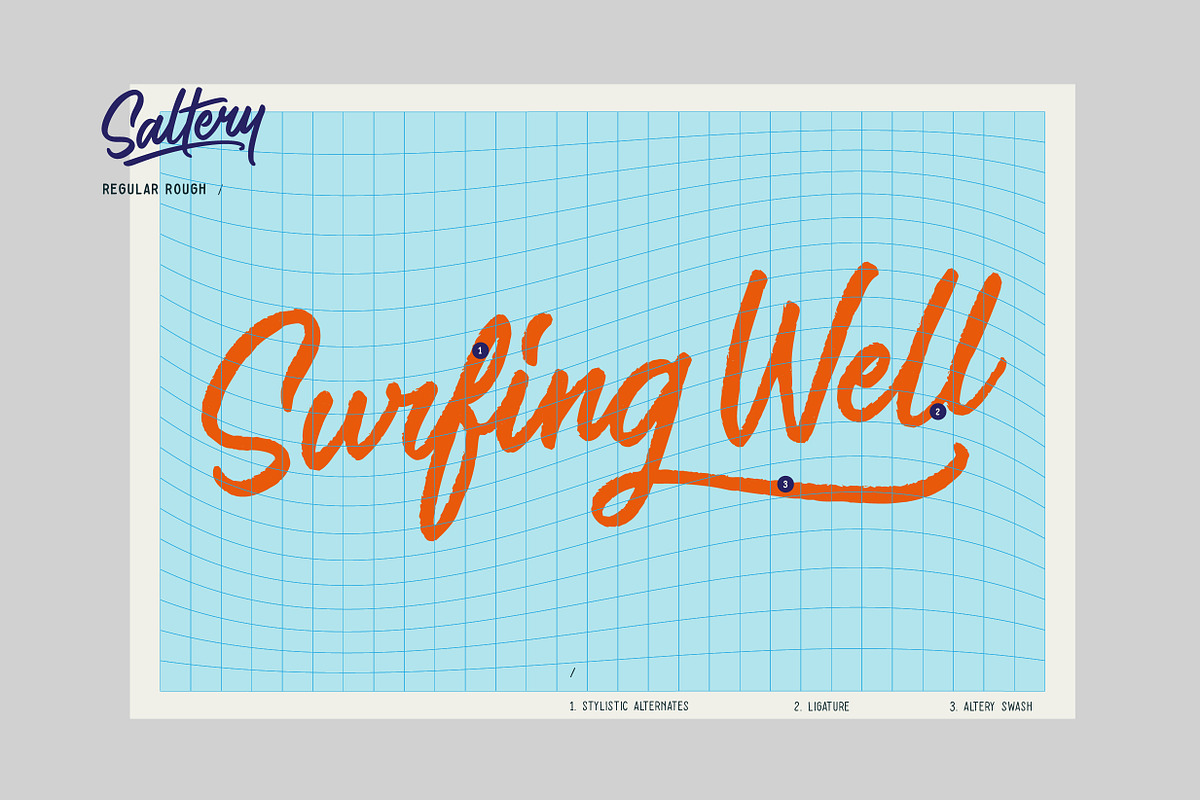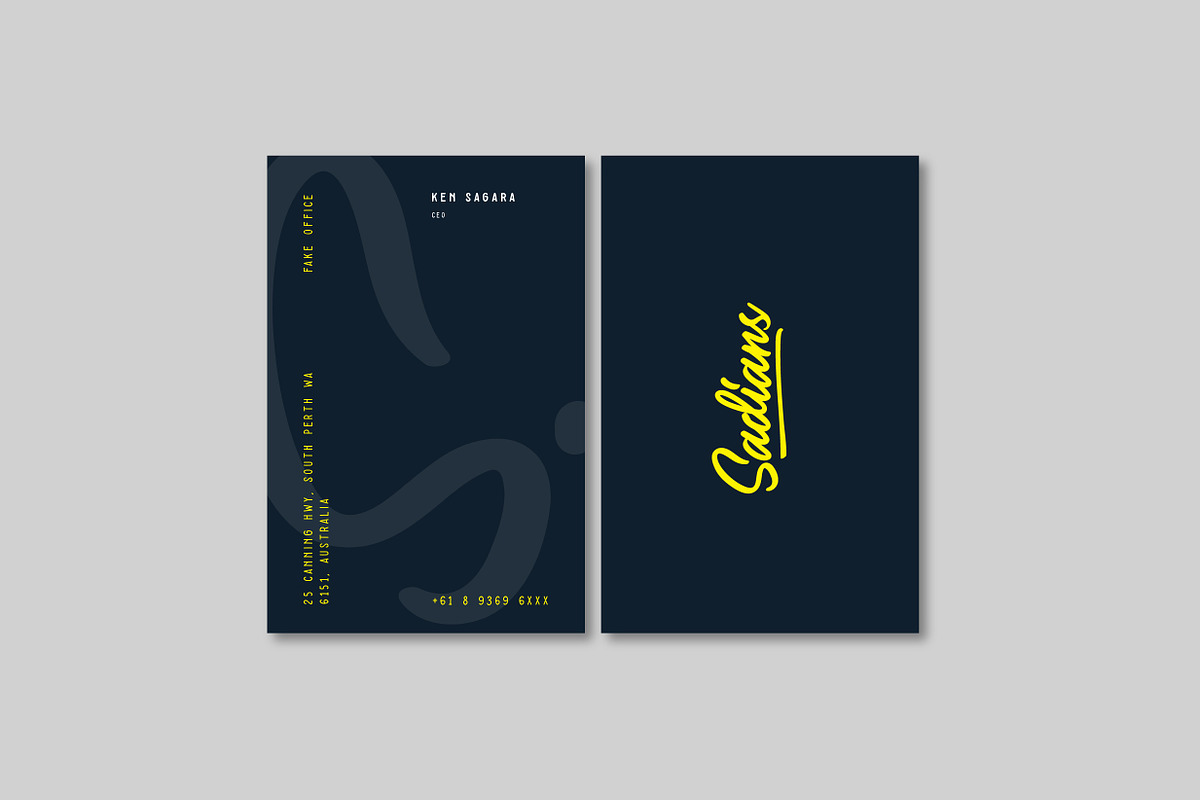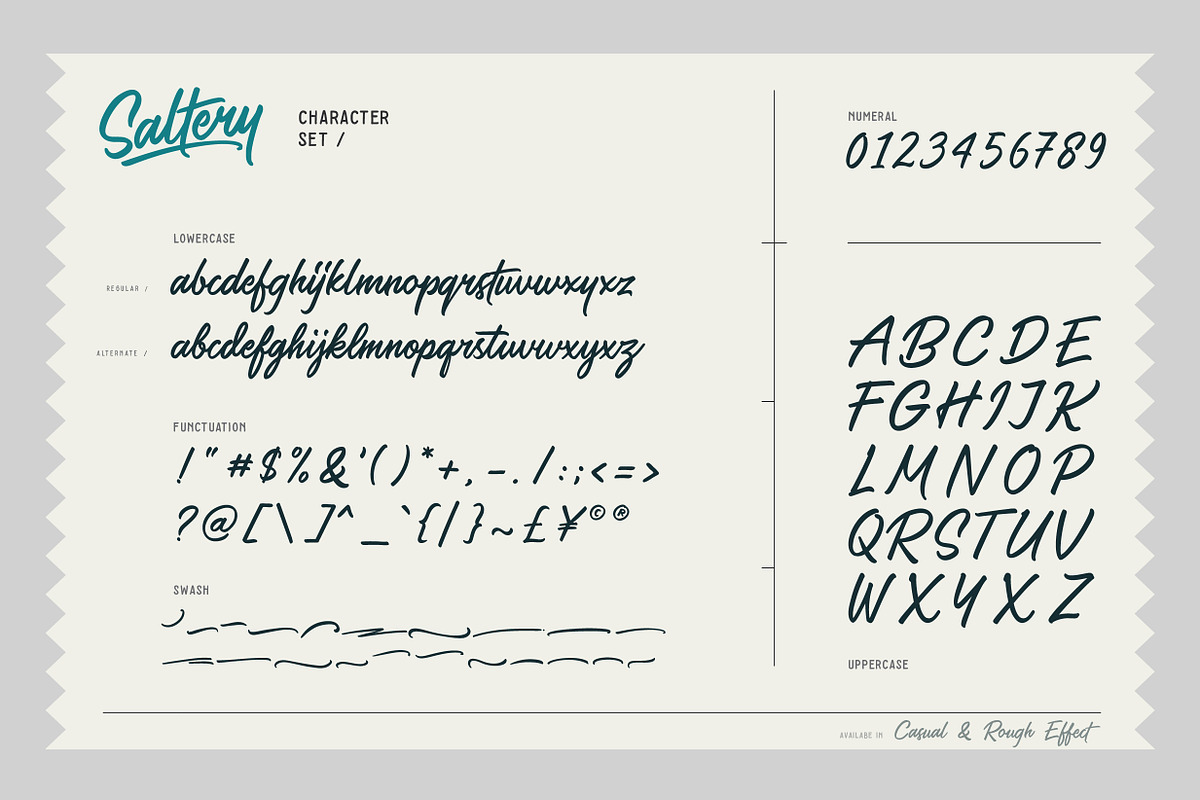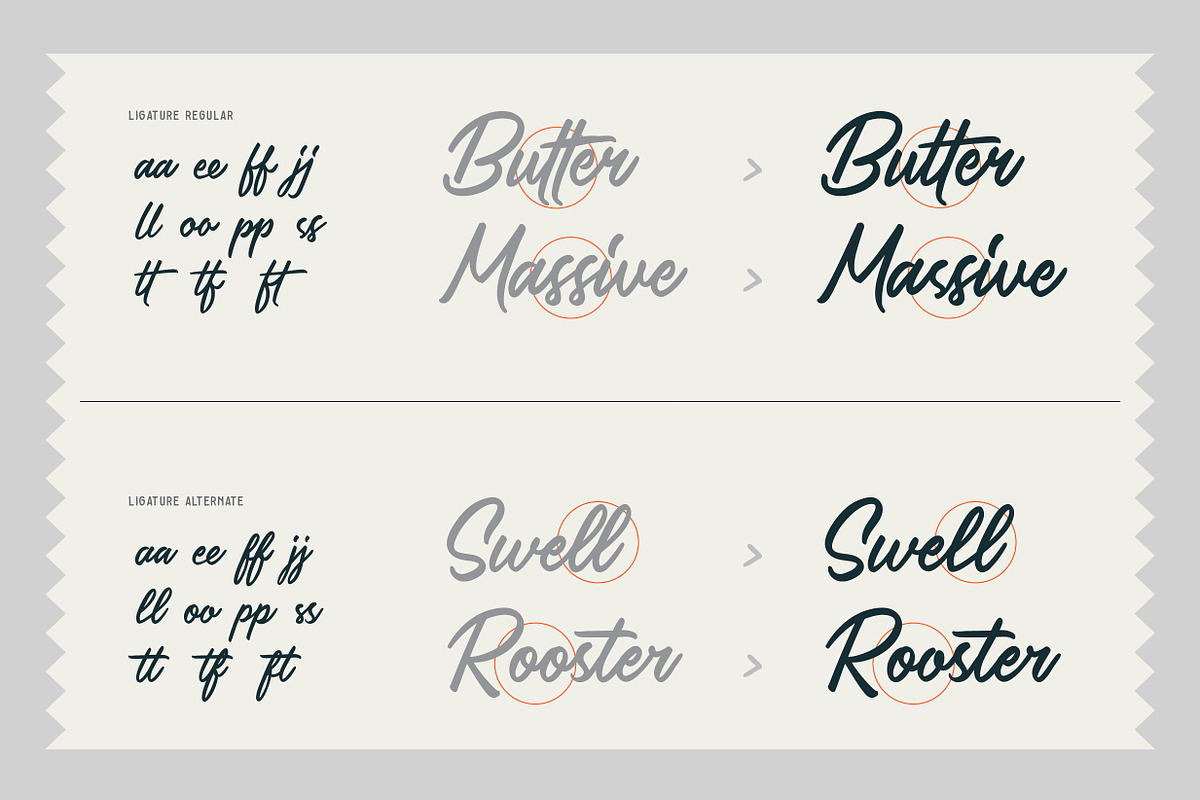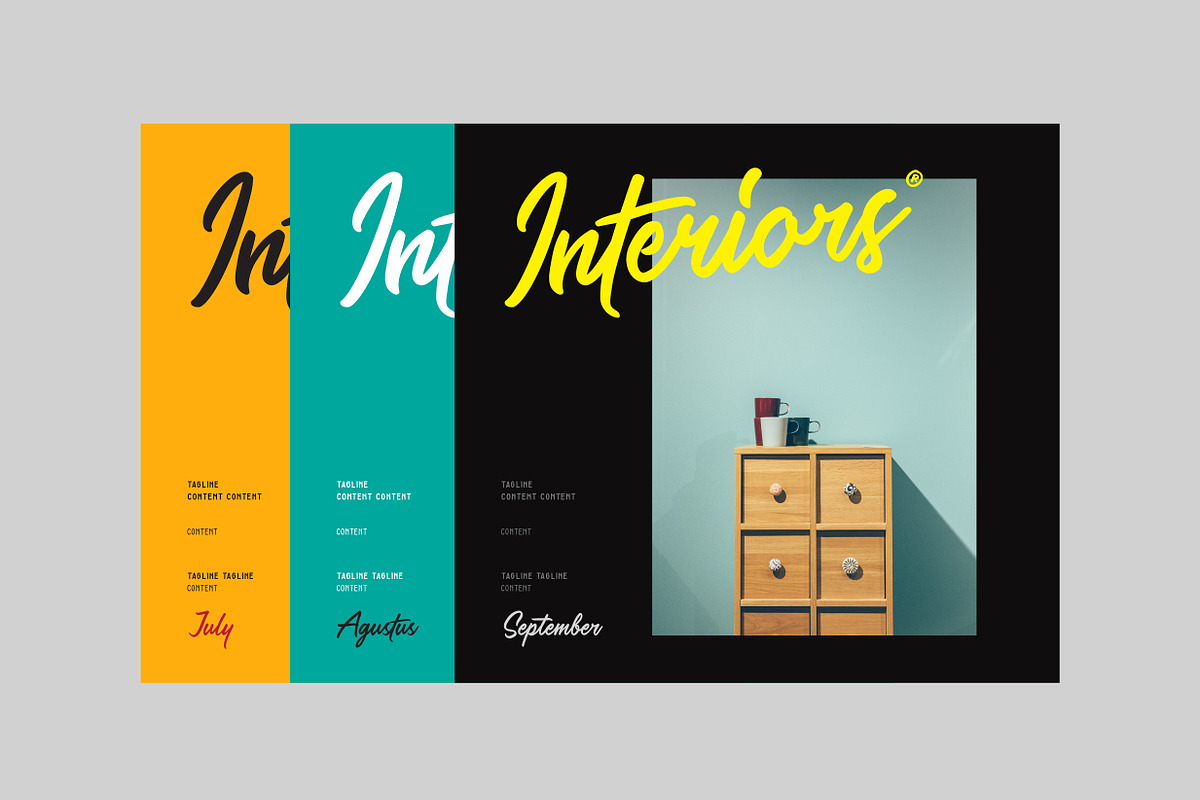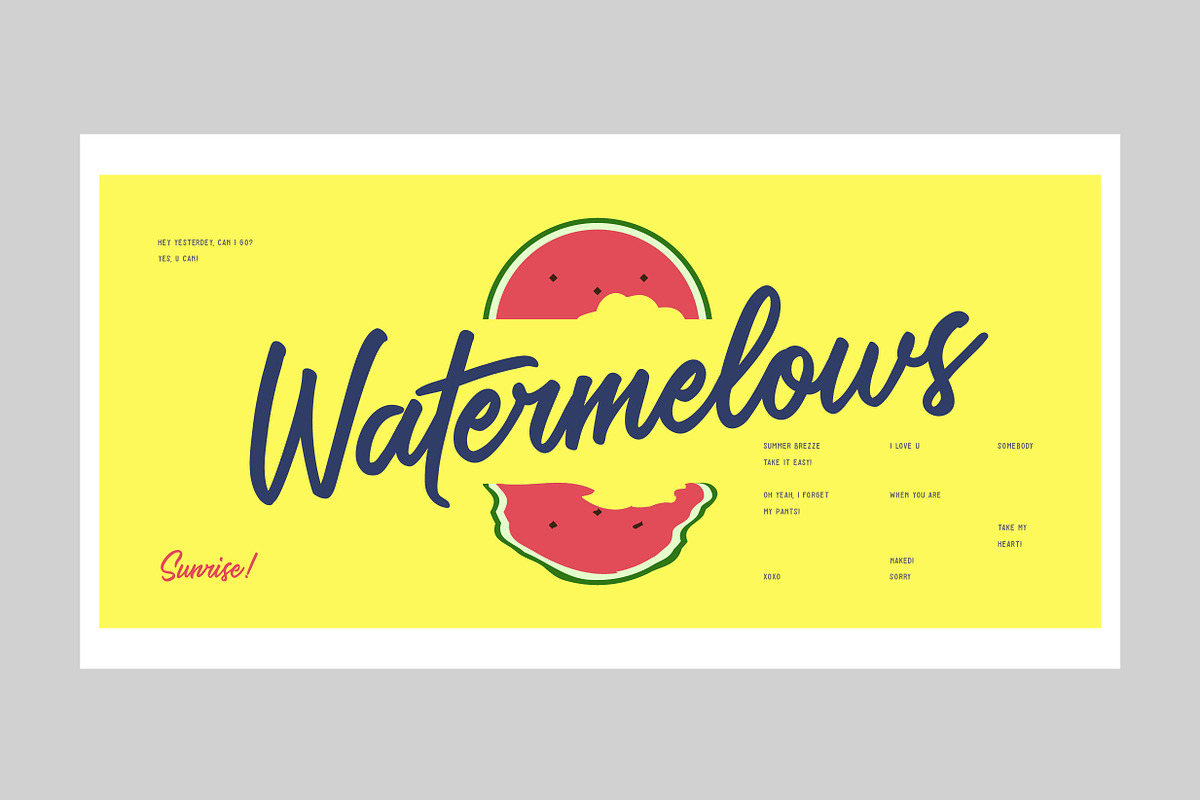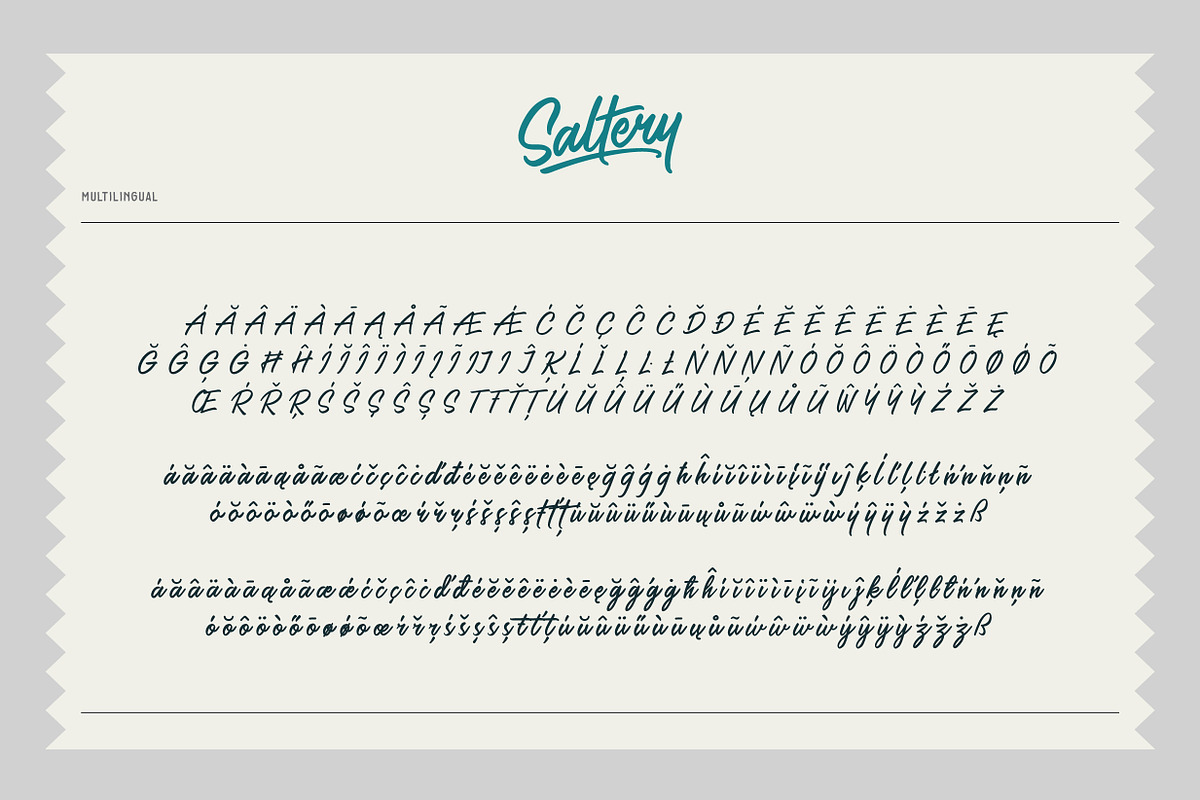
Saltery Brush Font
Saltery is modern, fresh, casual, and stylish brush font coming up with clean and rough effect fonts plus extra swash, the Saltery Family Font is made with precision to look natural like a brush stroke. Opentype Features like ligature and stylistic alternates complement each font to look dynamic, and stylish make your design more attractive.
Saltery Regular ( Clean)
Saltery Alternate ( Clean )
Saltery Alternate Rough
- Opentype Features like ligature and stylistic alternates complement each font to look dynamic, and stylish make your design more attractive.